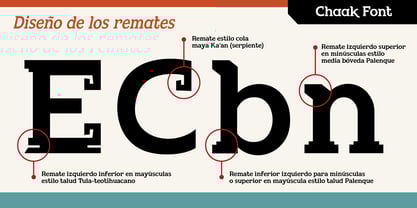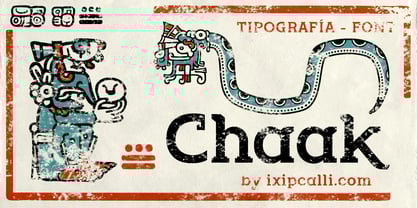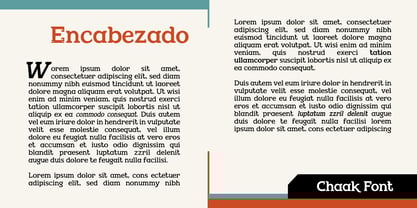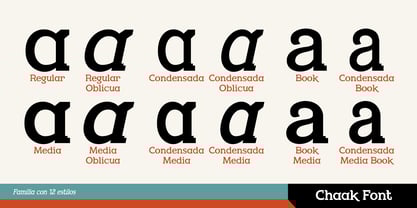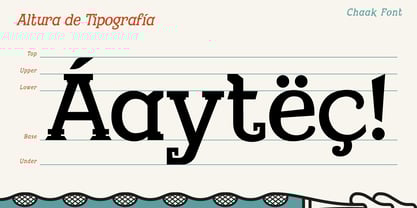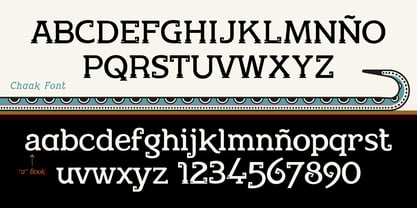
Chaak
Die Schriftfamilie Chaak wurde von Francisco Arellano entworfen und von Ixipcalli veröffentlicht. Chaak enthält 12 Stile und Familienpaketoptionen.
This Chaak typeface is part of the thematic font catalog developed as part of identity projects at Ixipcalli, inspired by Mesoamerican Mayan styles. The lower serifs of the capital letters allude to the slopes of the bases and constructions of pre-Hispanic temples and buildings as they appear in Mayan and Teotihuacan buildings. Its name is adapted from the god Cha'ak, lord of rain and lightning in the Mayan world.
The typeface is serif, adding twelve styles with two slightly visible weights, “regular” and “medium.” It also includes two types of variations, ‘normal’ and “book,” where the lowercase letter “a” makes the difference. Each weight and style also has its own oblique and condensed form for better readability.
The typeface is perfectly suited for use in books, writings, or any documentation that requires a semi-formal yet thematic style.